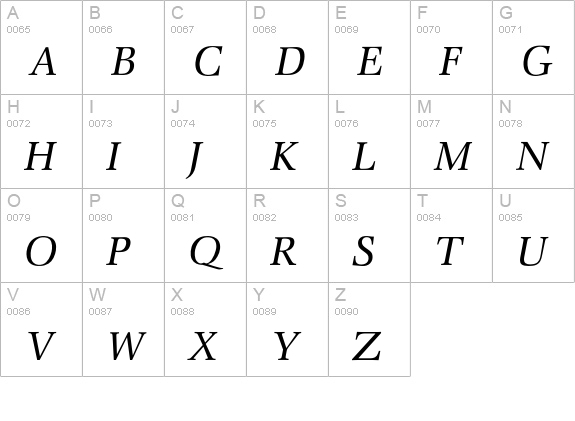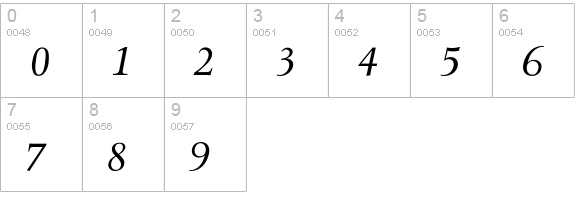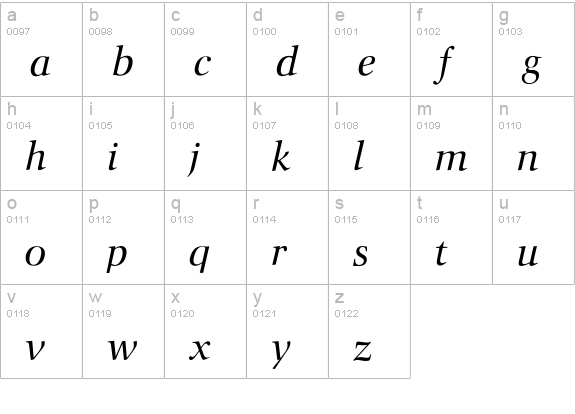
PacificItalic Font Details
PacificItalic font is a stunning and elegant typeface that will add a touch of sophistication to any design project. Its sleek and graceful letterforms are perfectly balanced, creating a harmonious flow of text that is pleasing to the eye. This font is the perfect choice for projects that require a touch of elegance and class, such as wedding invitations, luxury branding, or high-end editorial layouts. Its thin lines and delicate curves give it a refined and sophisticated appearance, making it a great choice for projects that require a sense of style and sophistication. What makes PacificItalic font even more appealing is that it is freely available to download at FontsMarket.com. This means that you can easily access this font without any cost or restrictions. Whether you are a professional designer or a casual enthusiast, having access to high-quality fonts like PacificItalic font can greatly enhance your creative projects. With PacificItalic font, you can create stunning designs that stand out from the crowd. Its unique and distinctive letterforms will make your text look effortlessly stylish and refined. Whether you are designing a logo, a poster, or a website, this font will add a touch of elegance and class to your project. So why wait? Download PacificItalic font for free at FontsMarket.com and start creating beautiful designs today. With its elegant and sophisticated style, this font is sure to make a lasting impression on your audience. Elevate your design projects to a whole new level with PacificItalic font.